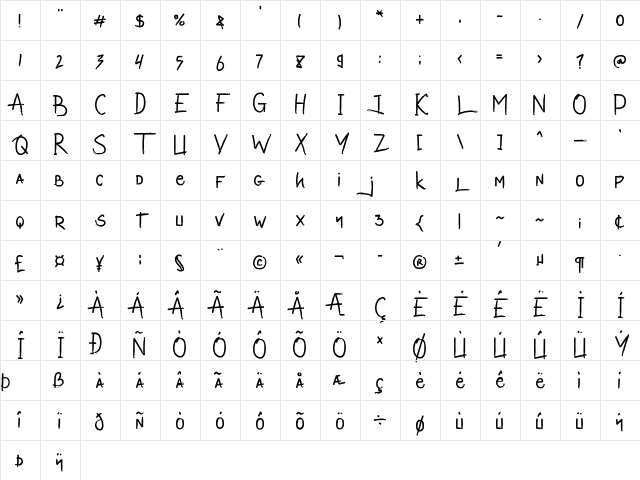
Valetta Man Regular
Foundry: Dierstudio
Designer: Ahmad Khaidir
Design Context for Valetta Man
Valetta Man is a composed and adaptable typeface that performs quietly and consistently across a wide range of design contexts.